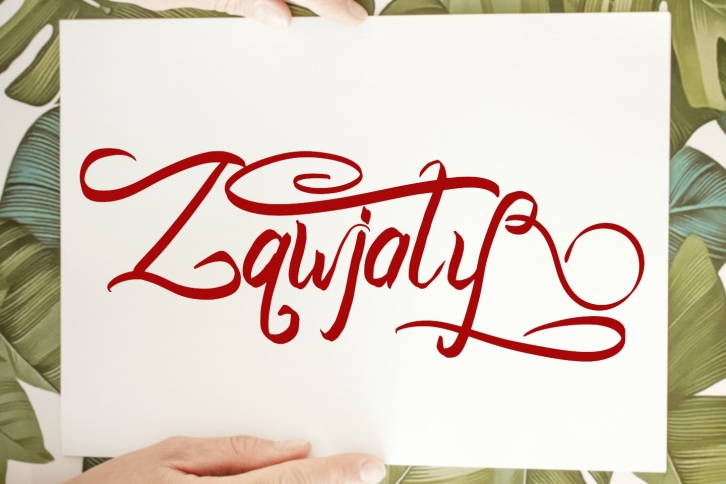
Zawjaty Handwritten is a beautiful font that was designed by SSIScraps. It's a great choice for designers and creatives who need such a font. It was released on August 27, 2020 and the file size is 13.37 MB. Zawjaty Handwritten may give a more youthful, expressive and casual look to your project. It is a very beautiful, refined, elegant, and high-quality font.